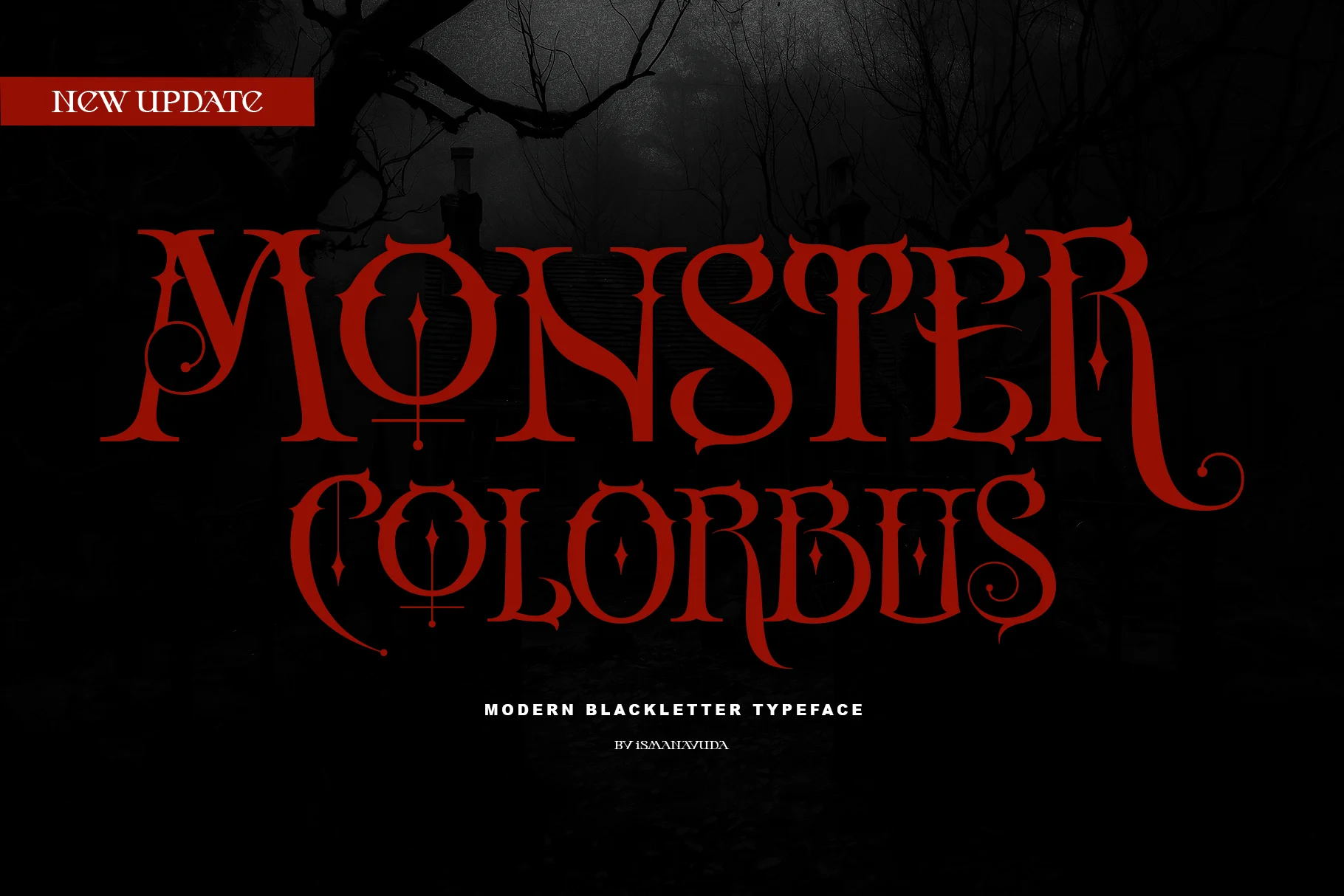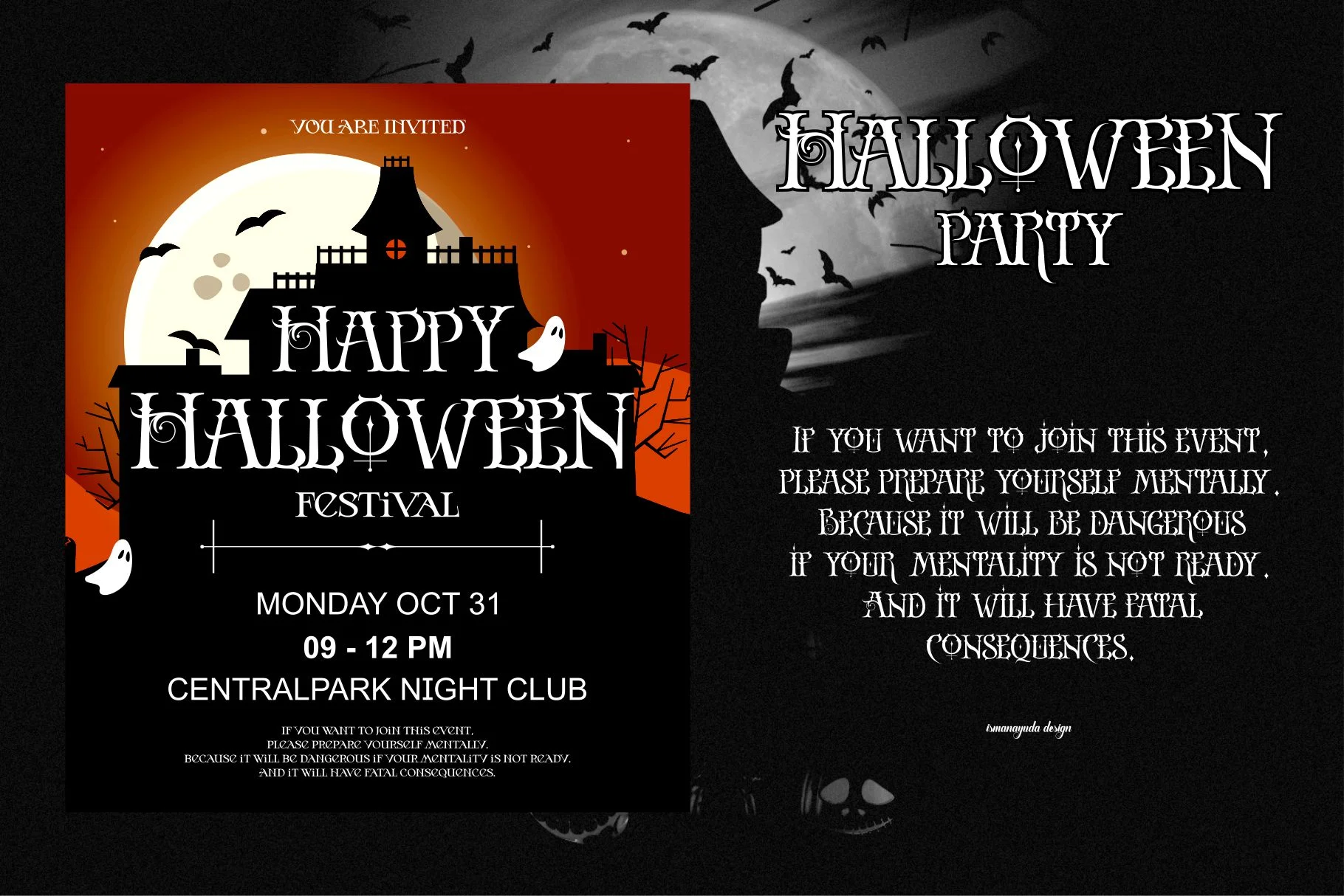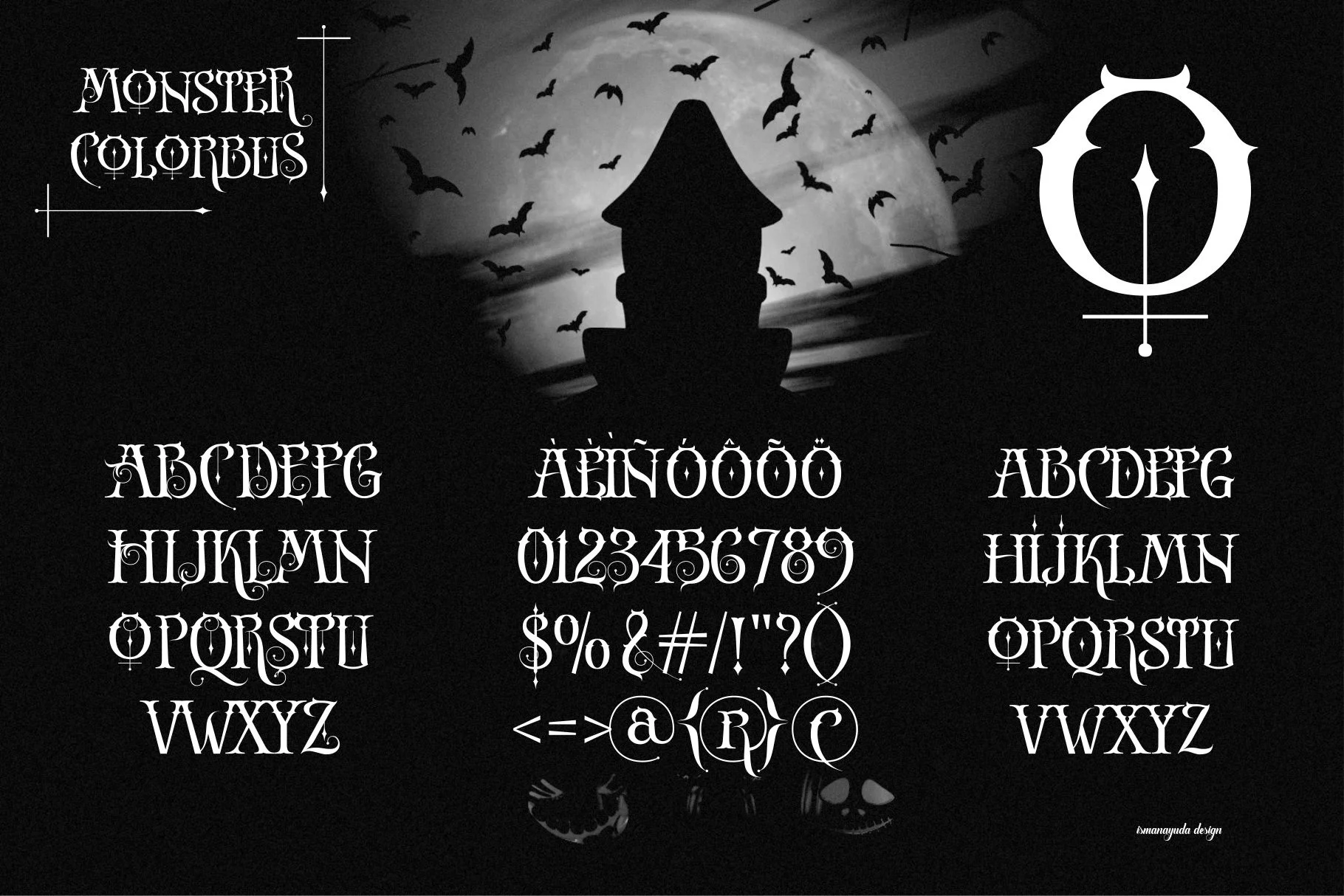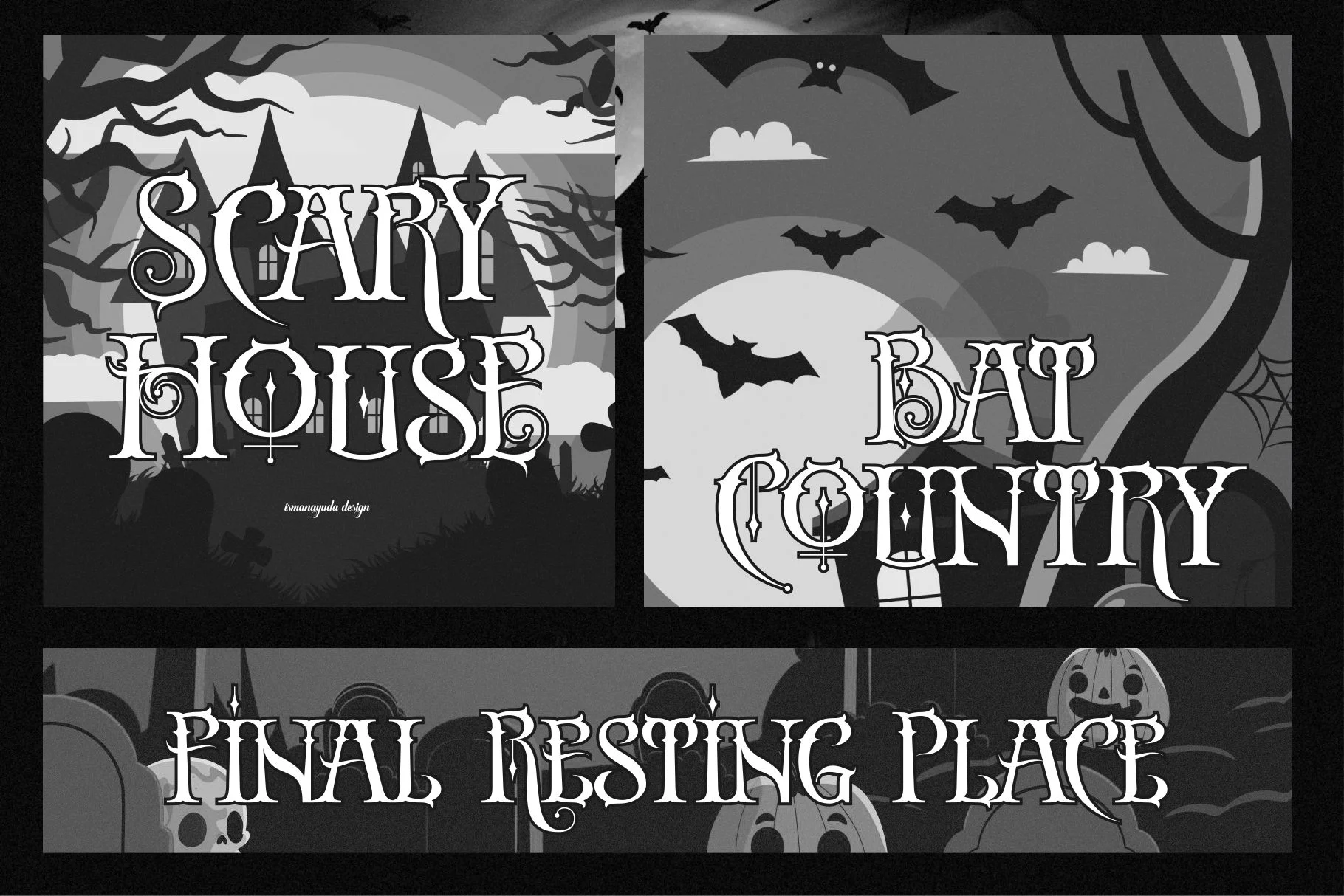
Monster Colorbus
Monster Colorbus is a bold, uniquely designed modern blackletter typeface. It blends a classic gothic foundation with a distinct steampunk aesthetic, featuring intricate detailing and sharp, dramatic serifs. The letterforms are characterized by their vertical stress and ornate flourishes, often including stylized internal elements that give it a sense of mechanical complexity. This high-impact display font is ideal for projects that require a dark, artistic, or vintage-industrial feel, such as horror movie posters, band logos, branding for tattoo studios, and specialized merchandise.